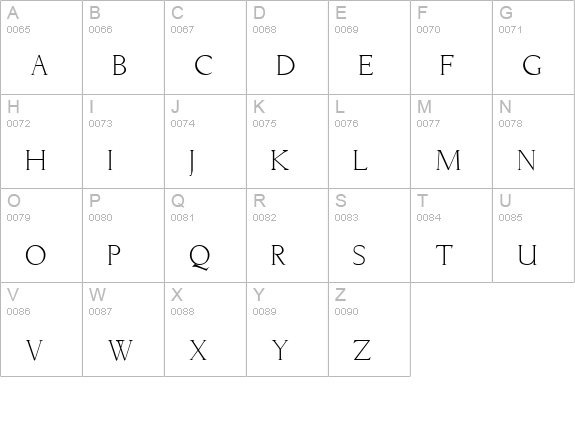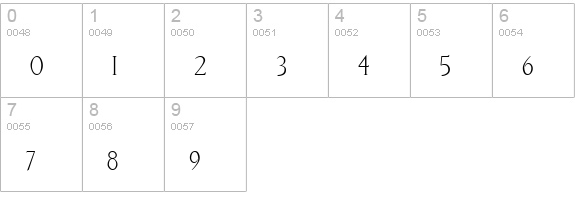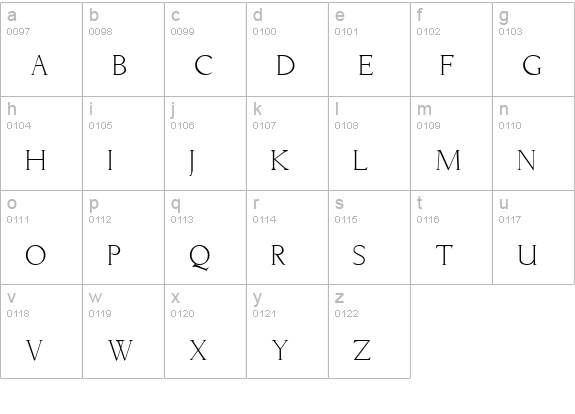
Lichtner Regular Font Details
Lichtner Regular is the standard, neutral variant in the Lichtner typeface family \xE2\x80\x94 well suited to general body text, paragraphs, and standard typographic work.
Lichtner Regular font is a versatile and elegant typeface that exudes sophistication and modernity. Its clean lines and balanced proportions make it perfect for a wide range of design projects, from branding to editorial design. The font's timeless yet contemporary appearance adds a touch of class to any layout. What sets Lichtner Regular font apart is not only its stunning design but also the fact that it is available for free download at FontsMarket.com. This means that you can effortlessly add this beautiful font to your collection without any cost. Whether you're a professional designer or a hobbyist looking to elevate your projects, Lichtner Regular font is a must-have addition to your typographic arsenal. Don't miss out on the opportunity to enhance your designs with this exceptional font that is just a click away for free at FontsMarket.com.